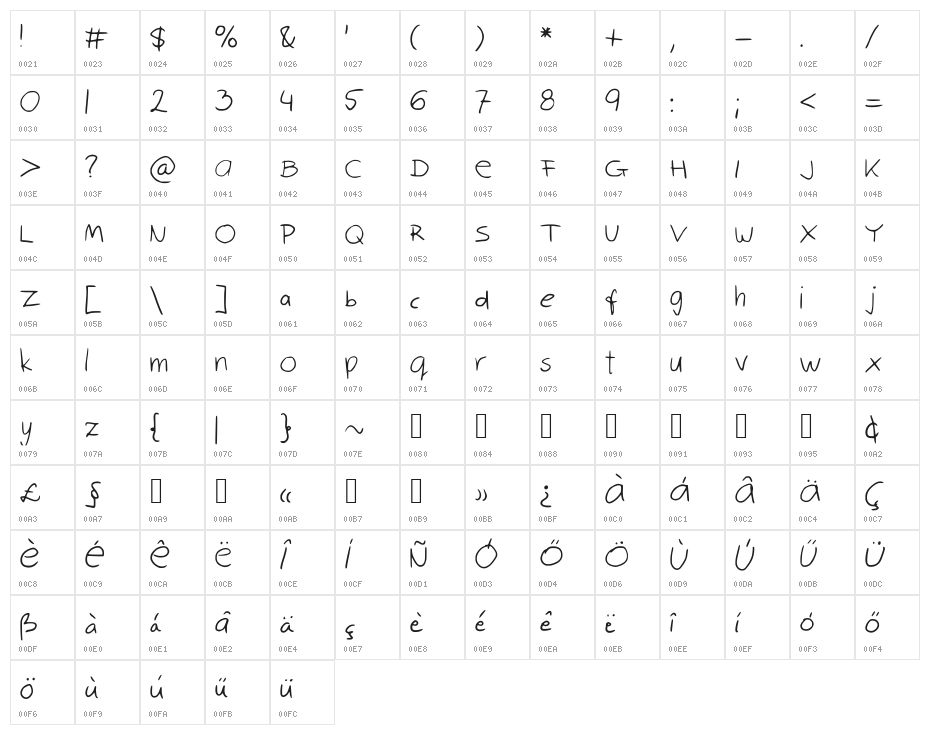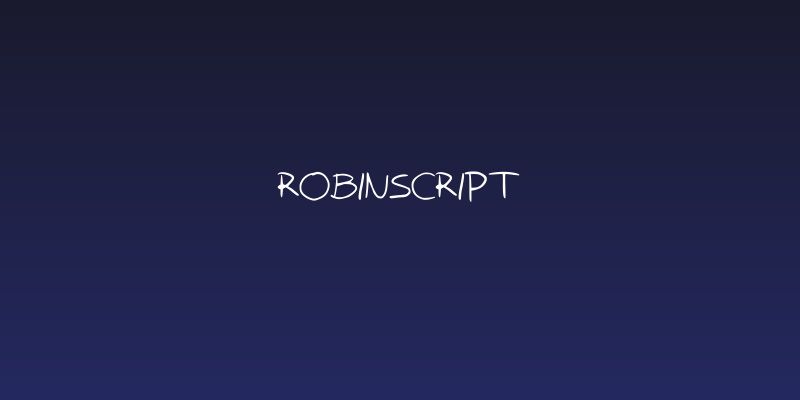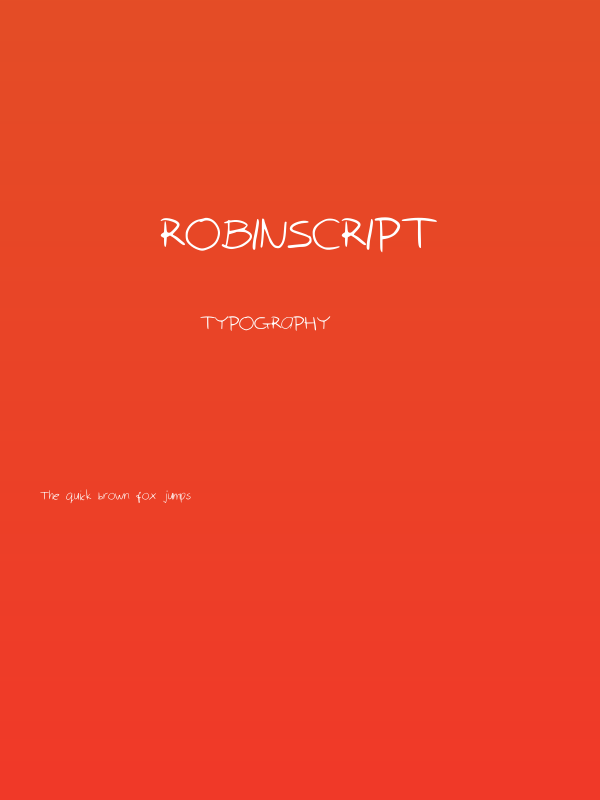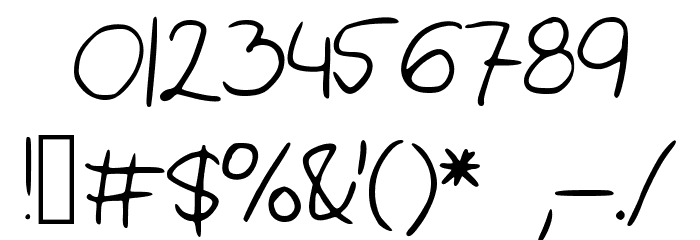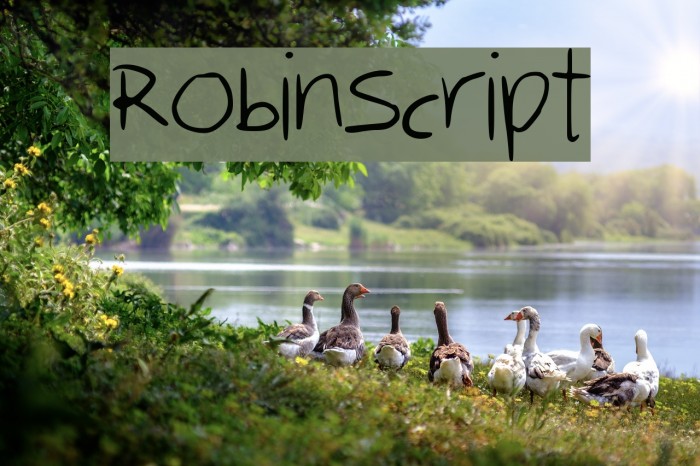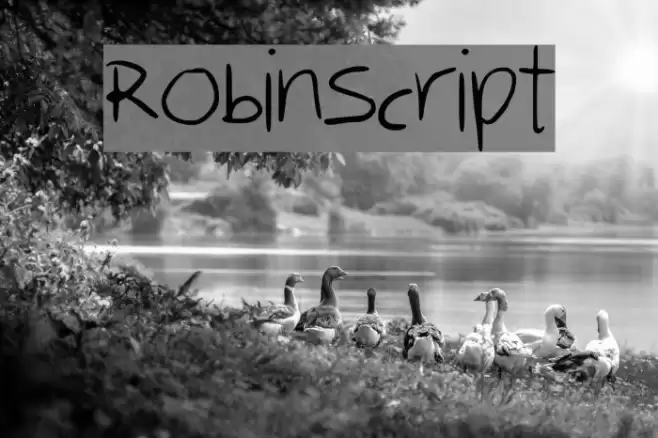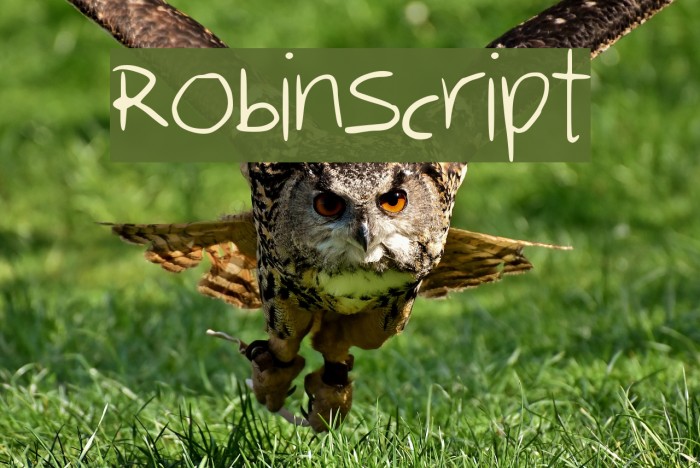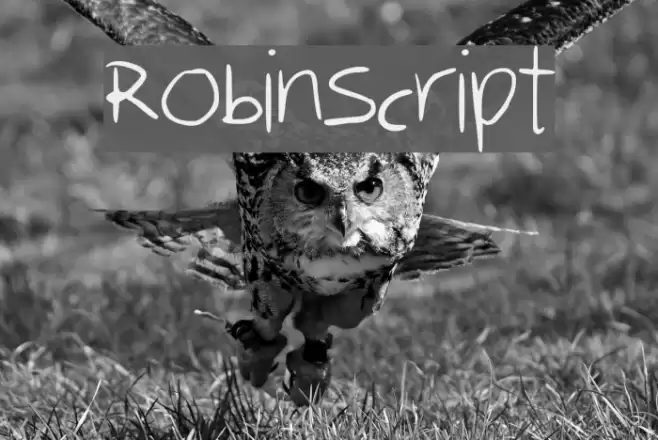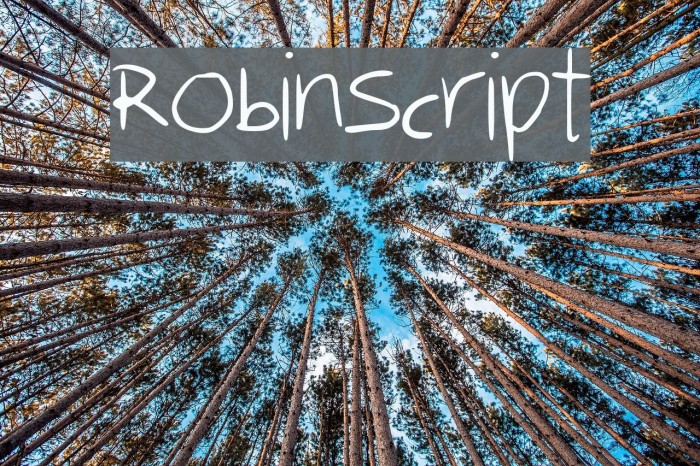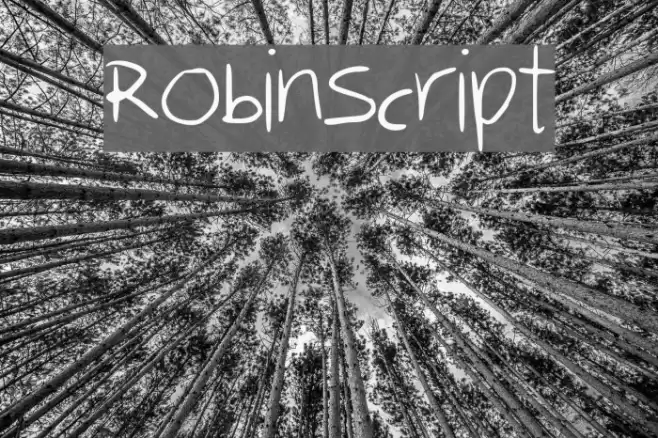
RobinScript Font
RobinScript Description
This font features a playful and casual handwritten style, characterized by its smooth, flowing lines and slightly irregular shapes that mimic natural handwriting. The uppercase letters are bold and slightly slanted, giving a dynamic feel, while the lowercase letters maintain a consistent flow with rounded edges. The numerals are clear and legible, matching the overall informal aesthetic. Special characters are well-integrated, maintaining the same playful and approachable style. This font is ideal for projects that require a personal touch, such as greeting cards, invitations, or casual branding.
| Overall Style | Casual |
| Use Case | Logos, Headlines, Informal Text |
| Proposed Projects | Ideal for greeting cards, invitations, casual branding, and personal projects. |